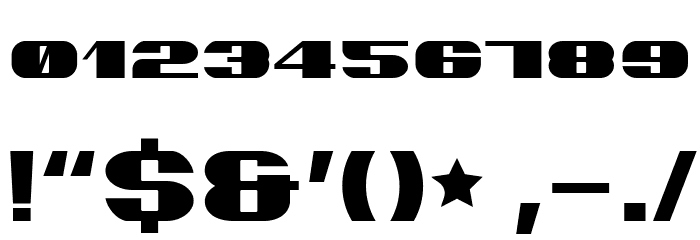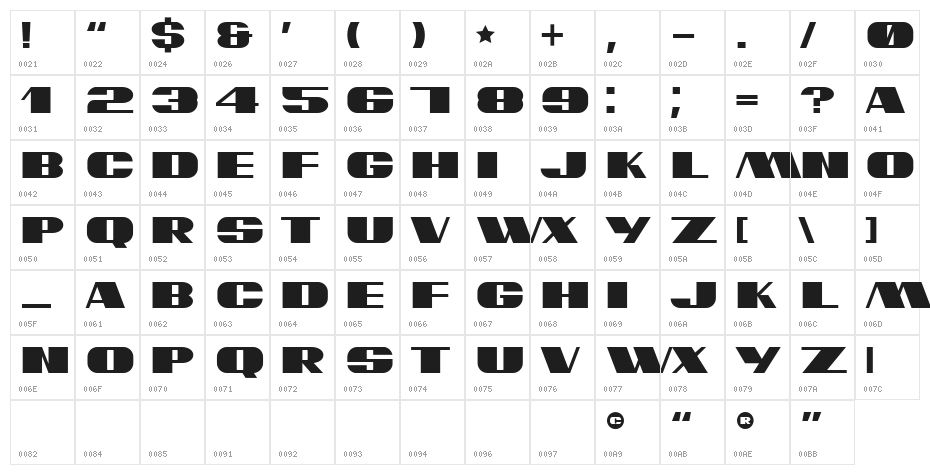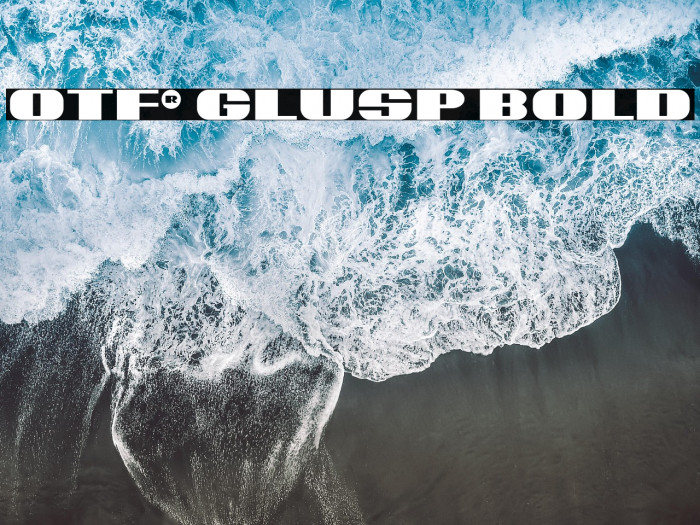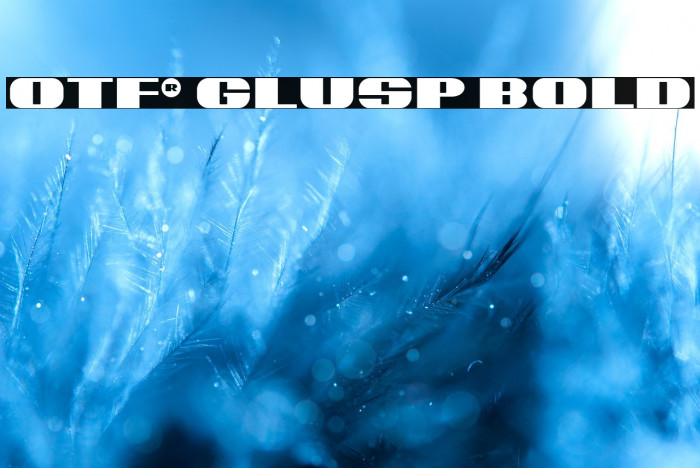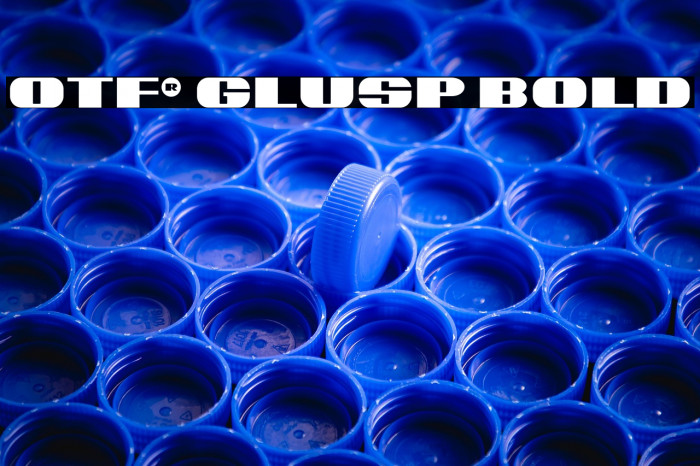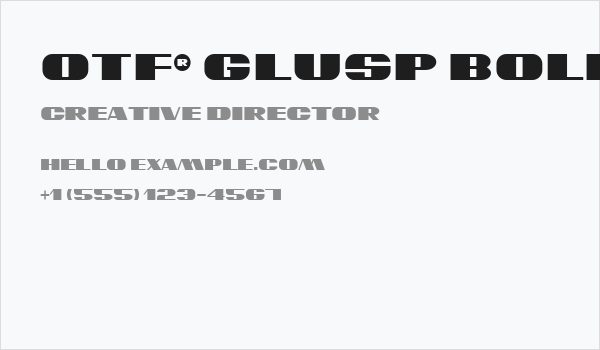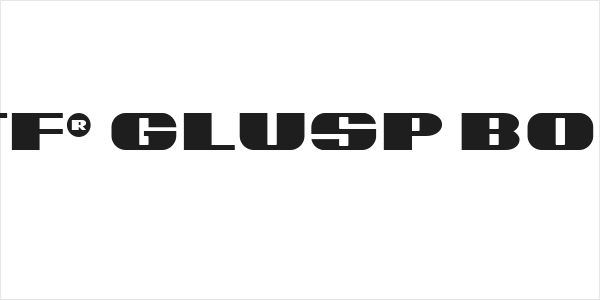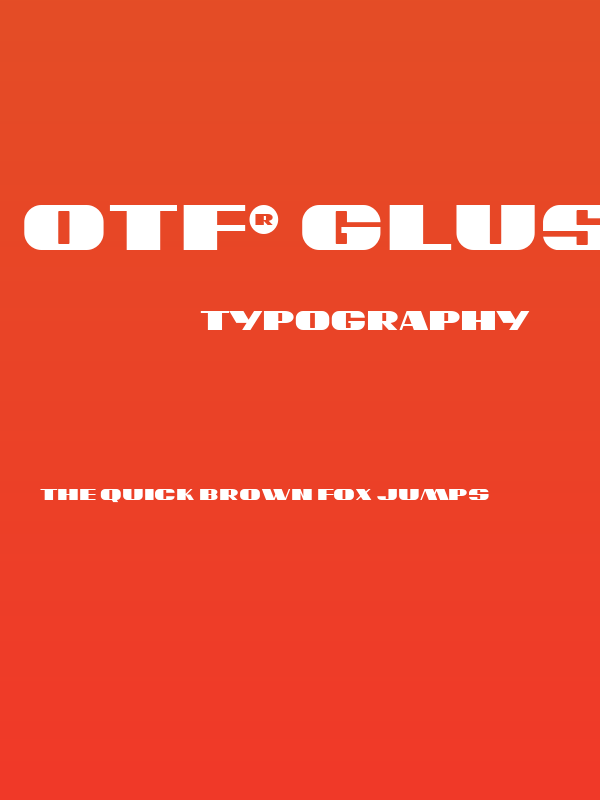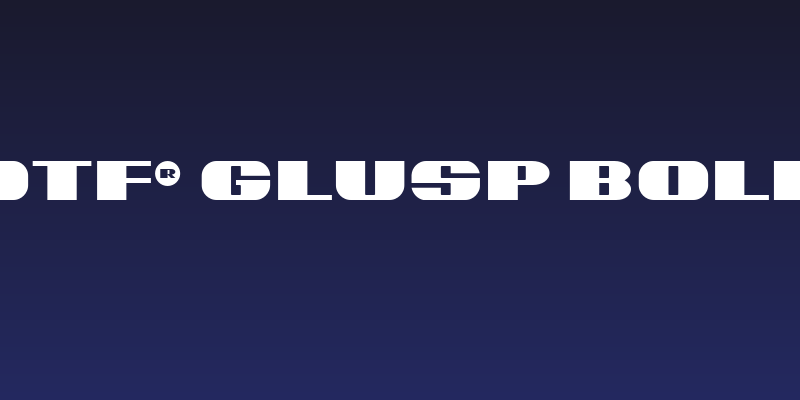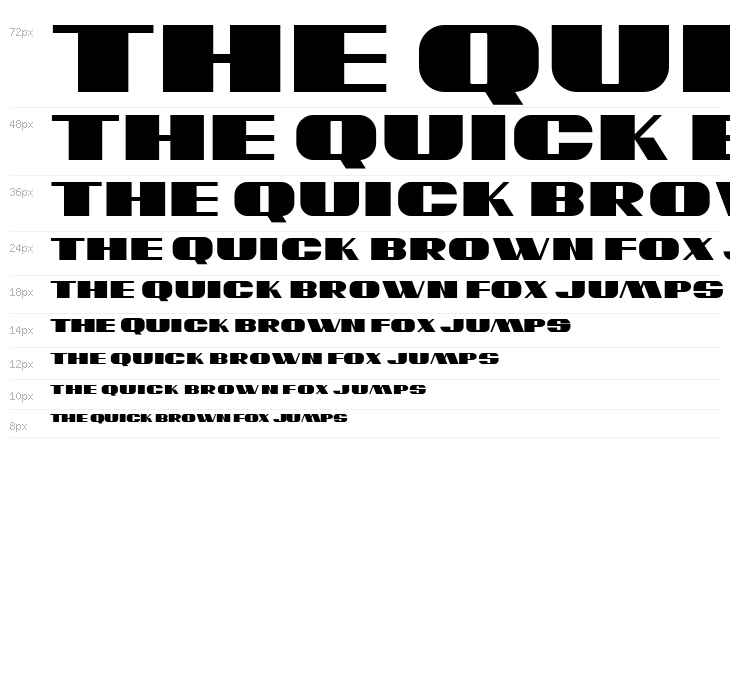
OTF® Glusp Bold Font
OTF® Glusp Bold Description
This font exhibits a bold and striking design, characterized by its thick, block-like letterforms with sharp, angular cuts. The uppercase letters are particularly prominent, with a strong geometric influence that gives them a modern and industrial feel. The numbers and special characters maintain this robust style, ensuring consistency across all glyphs. The font's design is highly impactful, making it suitable for attention-grabbing headlines and branding applications. Its bold weight and distinct style make it stand out, while the angular elements add a unique touch to its overall appearance.
| Proposed Projects | Ideal for branding, headlines, posters, and any design requiring a strong visual impact. |